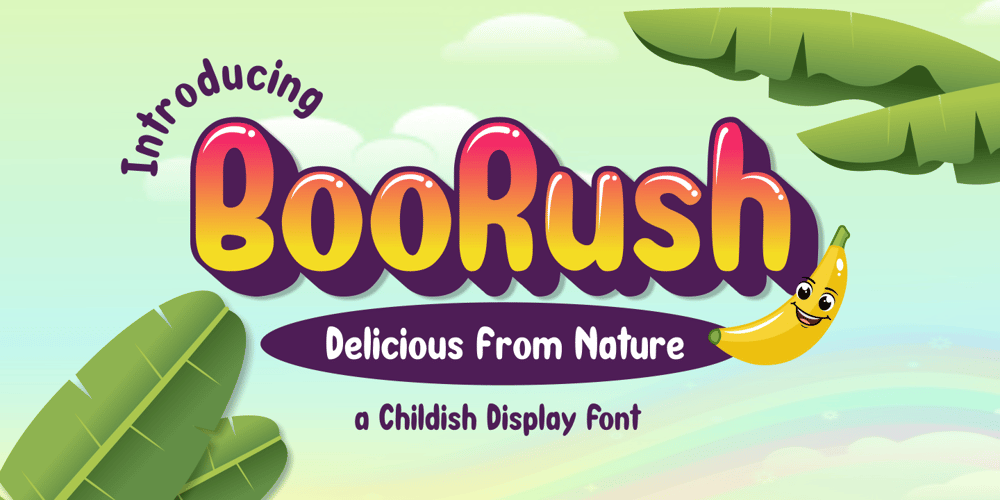
BooRush Font Family was designed by Nur Faidin and published by Nurf Designs. BooRush contains 1 styles and family package options. BooRush is a display font with a childish touch. The bold shape makes this font very suitable for any playful heading!